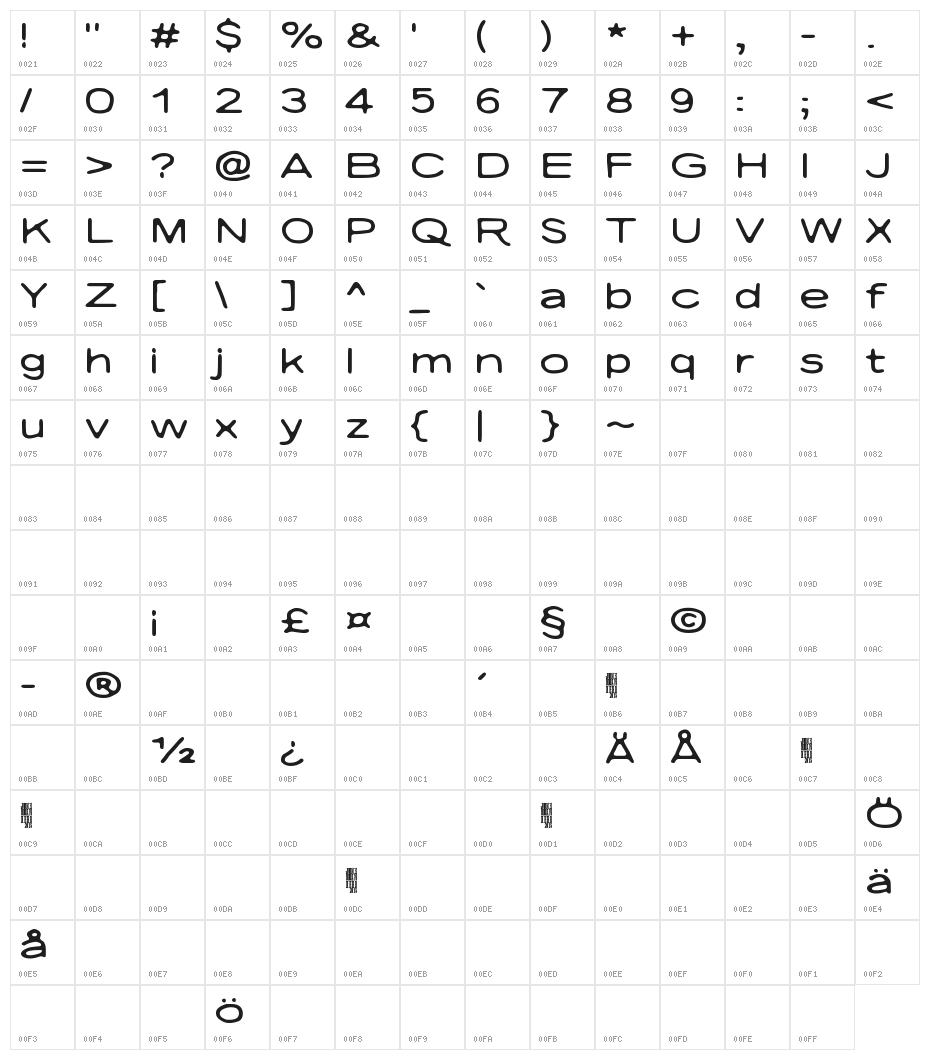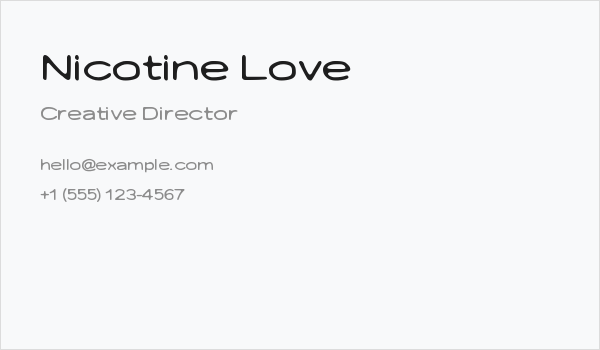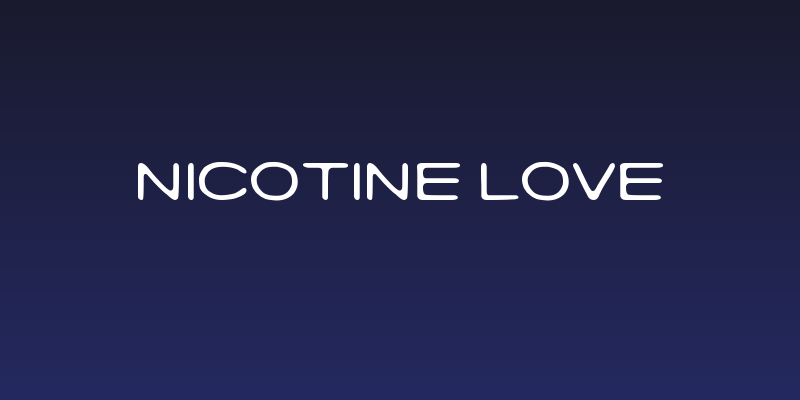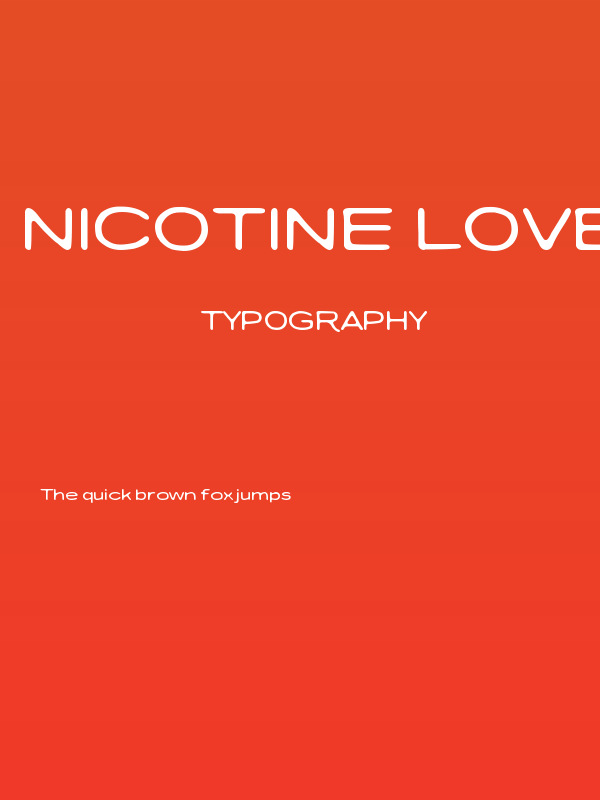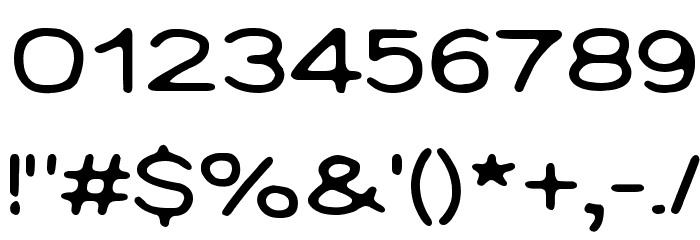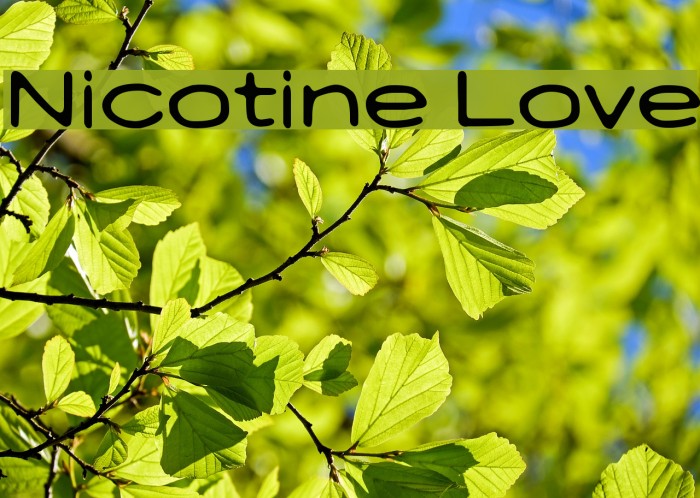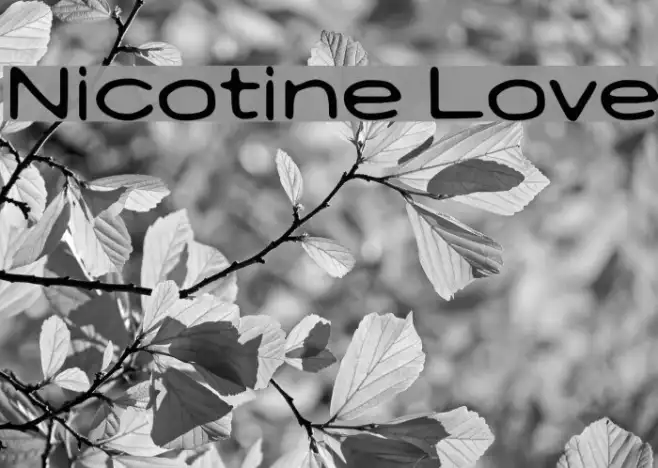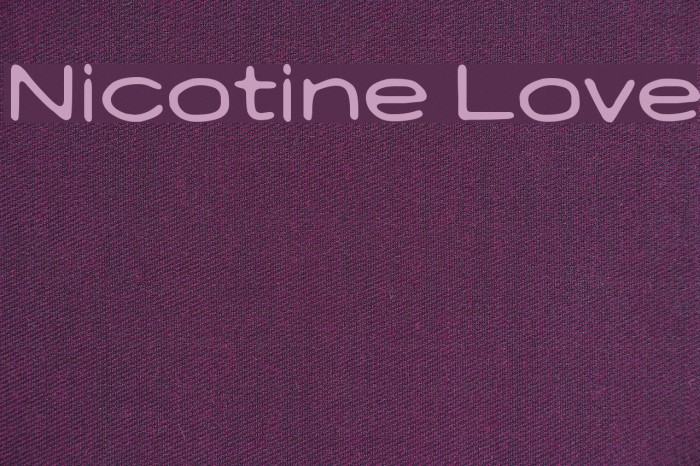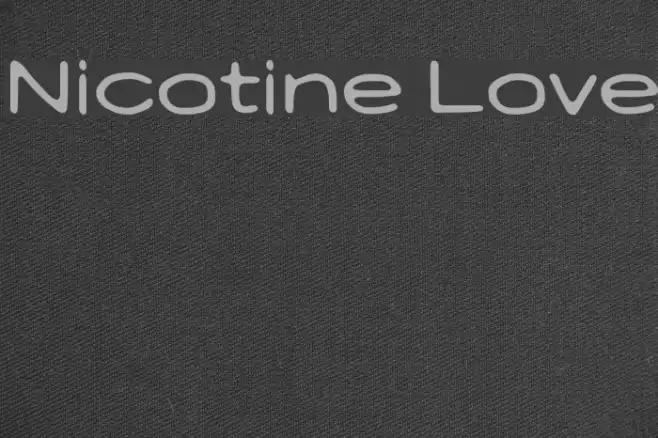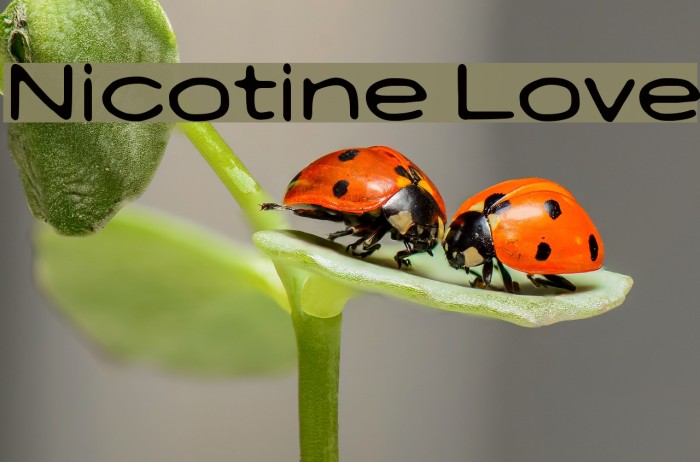
Nicotine Love Font
Nicotine Love Description
This font features a playful and rounded design, characterized by smooth curves and a friendly appearance. The letters are evenly spaced, with a consistent stroke width that gives it a cohesive look. The uppercase and lowercase letters maintain a uniform style, making it versatile for various uses. The numerals and special characters are designed to match the overall aesthetic, ensuring harmony across all elements. Its approachable style makes it suitable for informal and creative projects.
| Use Case | Logos, Posters, Invitations |
| Proposed Projects | Ideal for children's books, playful branding, casual invitations, and creative posters. |